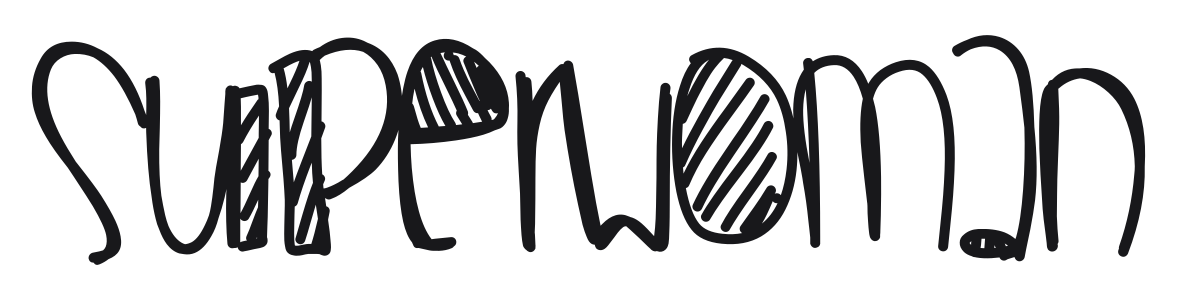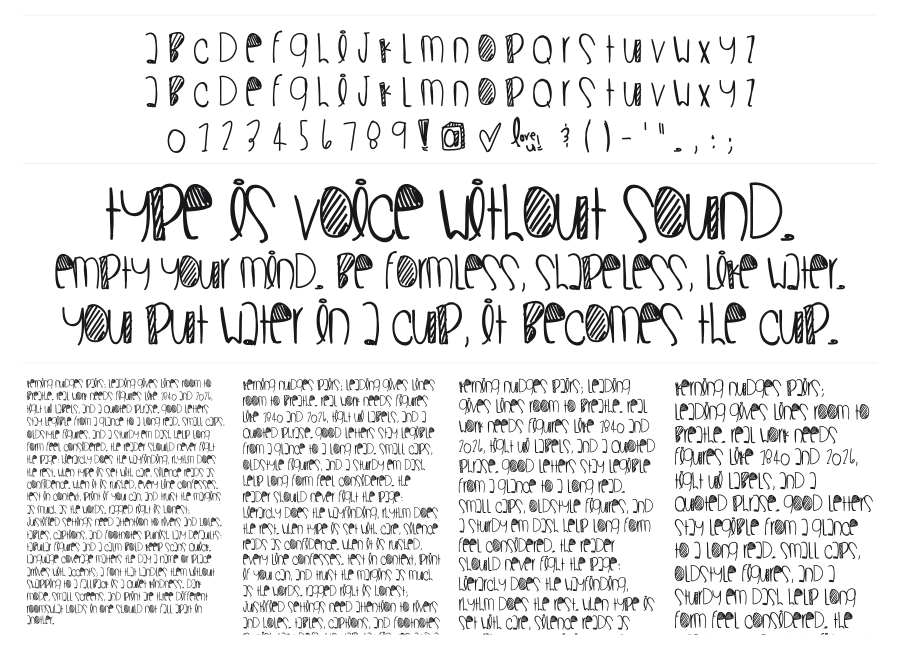
Superwoman
Superwoman is a casual handwritten font built on deliberately imperfect, bouncy characters with a hand-doodled personality. What makes it stand out is the diagonal hatching drawn inside select letters, giving the font a sketchbook illustration quality rather than plain handwriting. It reads with immediate energy and works well anywhere a design needs warmth and a human, offbeat touch.